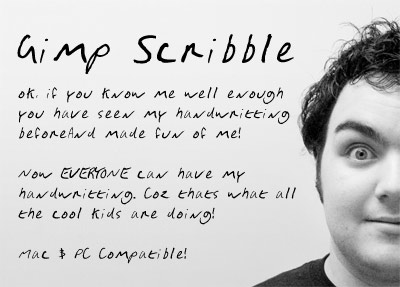
Preview and download Gimp Scribble Font. Created by Leigh Ericksen in Script Handwritten styles with Free for personal use license.
Font name: | Gimp Scribble |
Author: | Leigh Ericksen |
Note by Leigh Ericksen | |
People always pick on me for my handwriting. Now you can be picked on too!! |